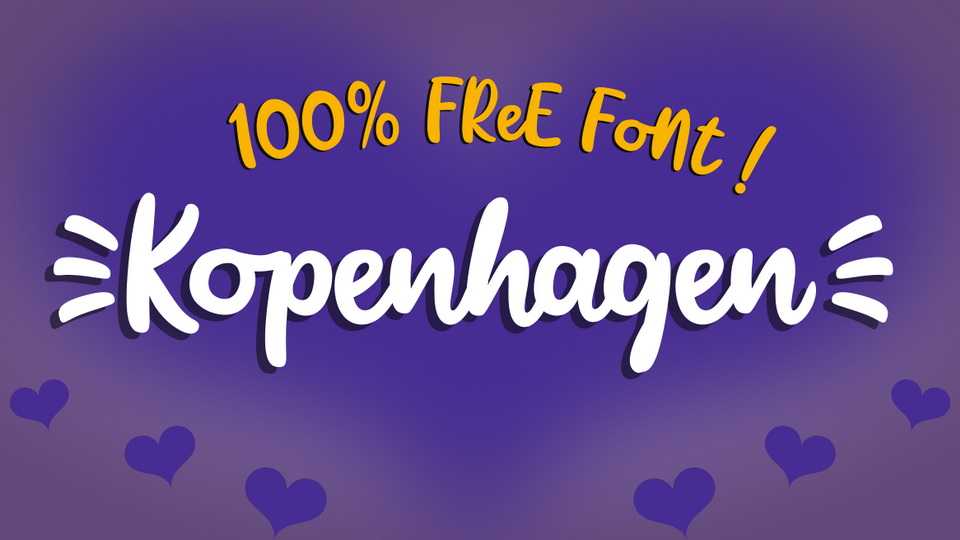
Download Kopenhagen font, a hand drawn marker pen typefac with a natural and soft flow. Kopenhagen works great for any craft project, printing, posters, notes, quotes and more.
Designer: Joe Letter